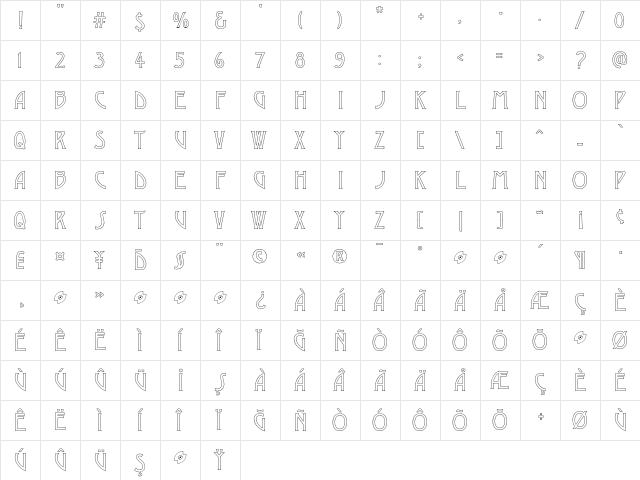
Desdemona Regular
Design Context for Desdemona Typeface
Desdemona is a composed and adaptable typeface that performs quietly and consistently across a wide range of design contexts.
Pro Tip: Pair Desdemona with a font of contrasting weight or personality to build a more expressive typographic hierarchy.